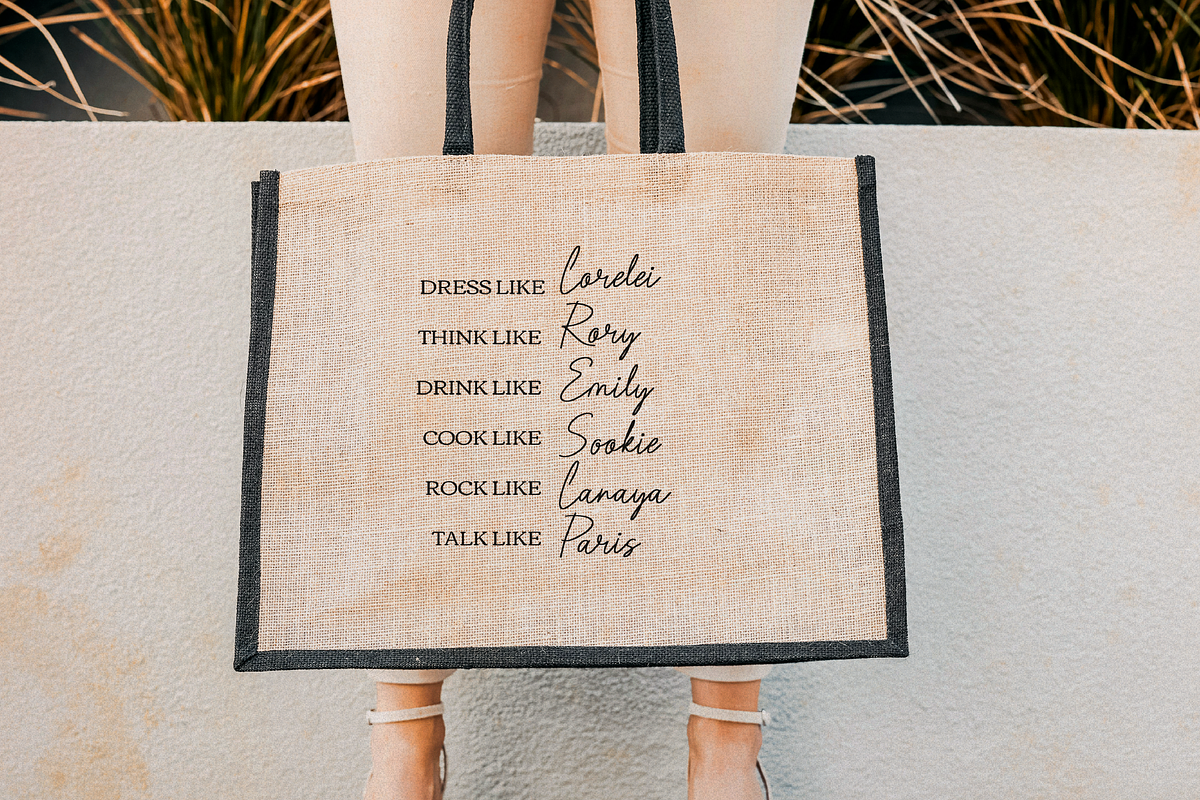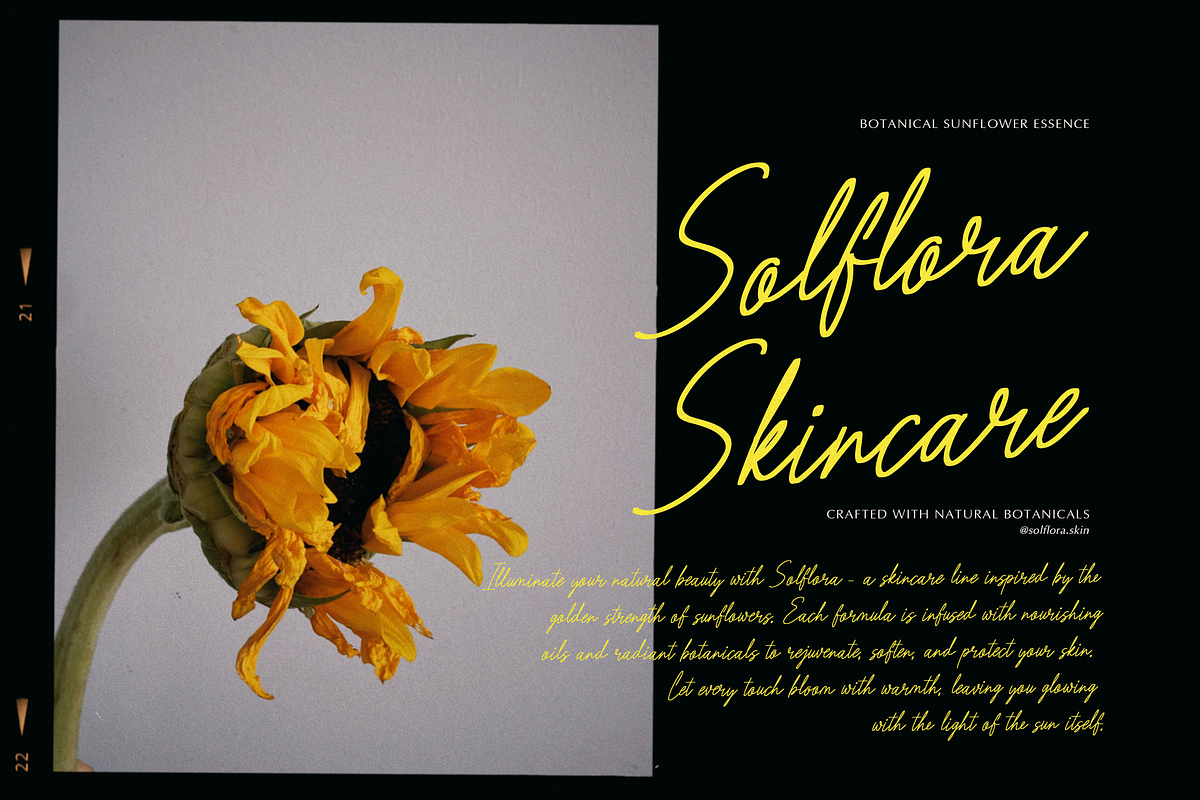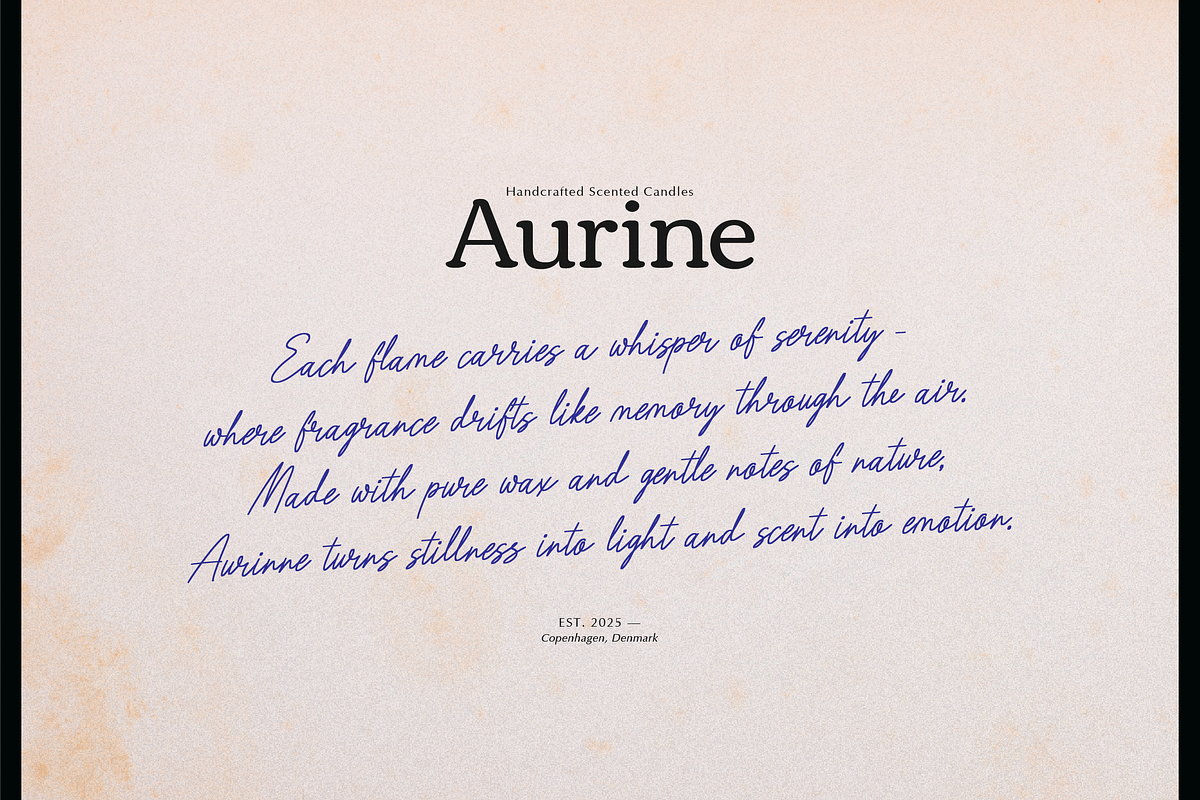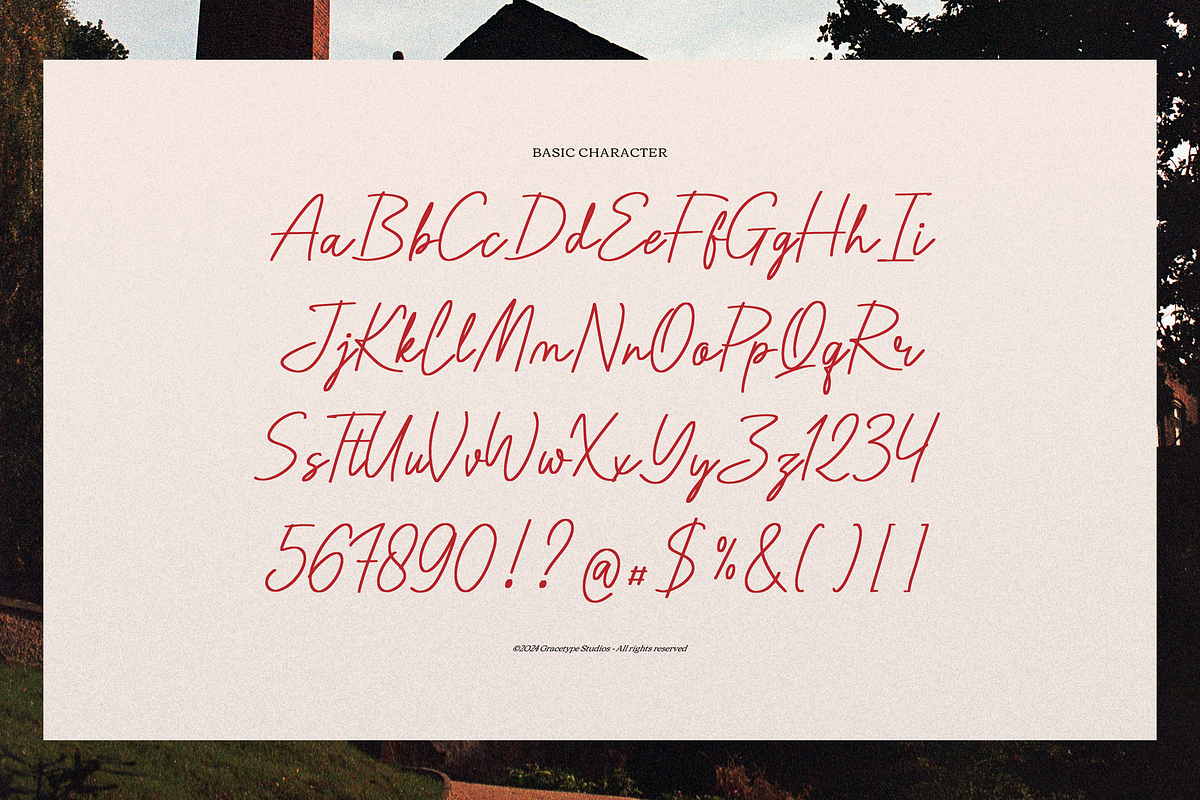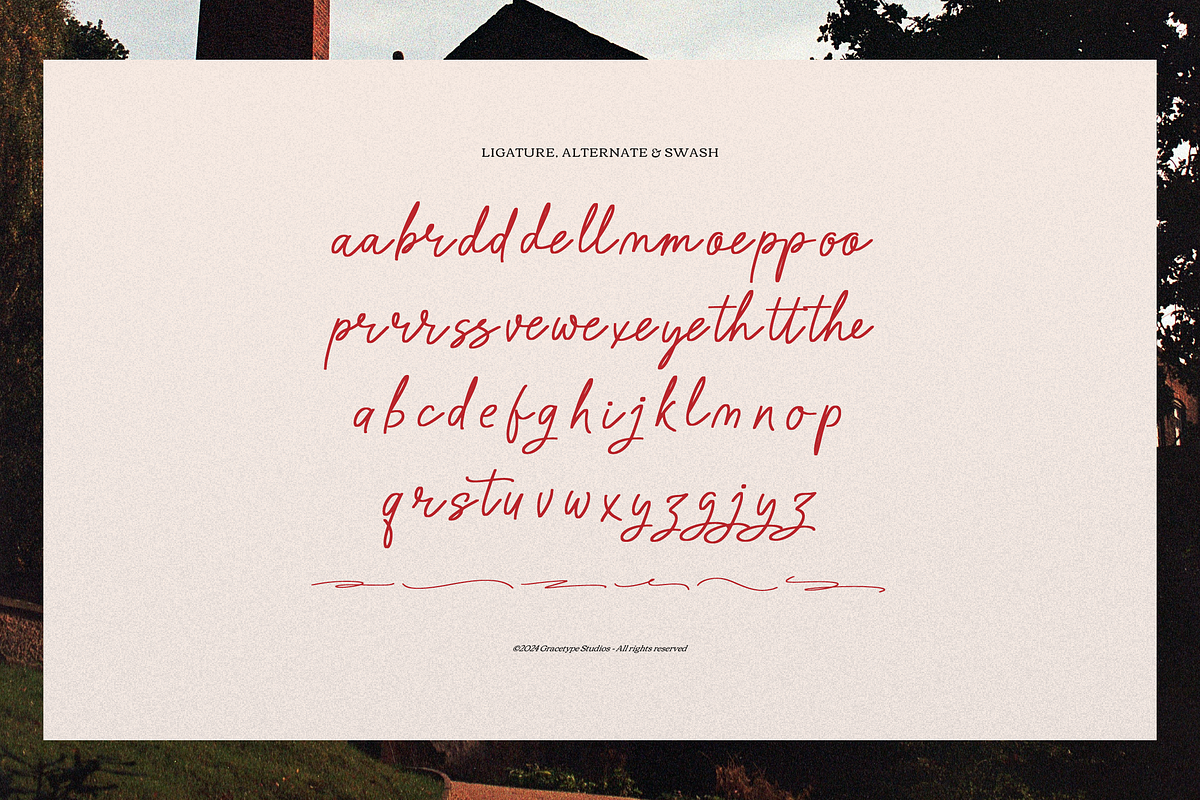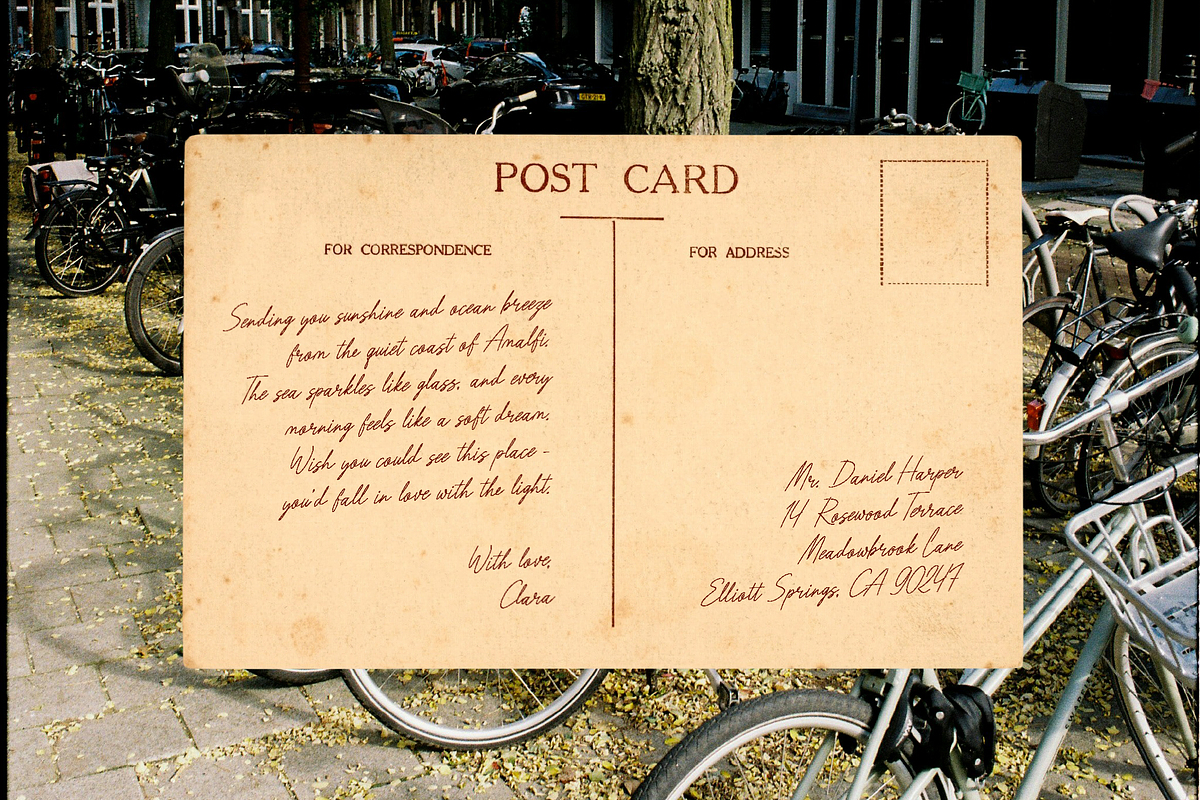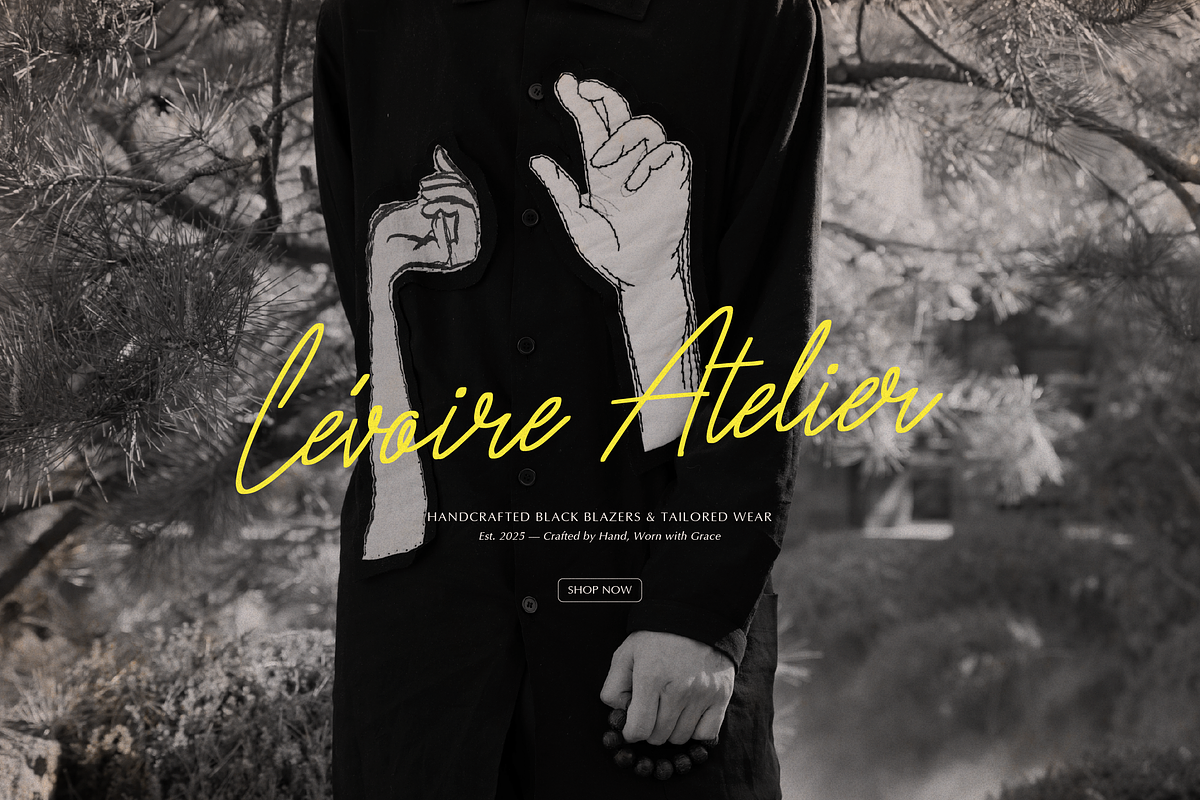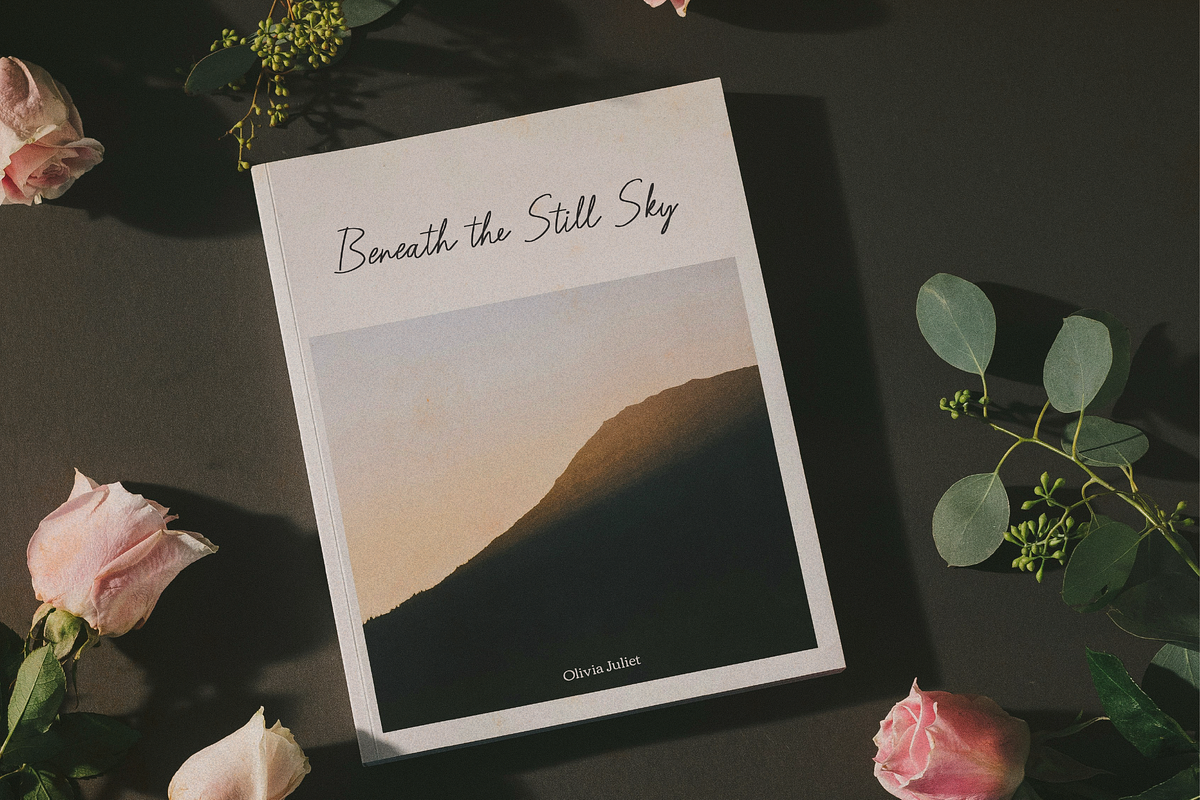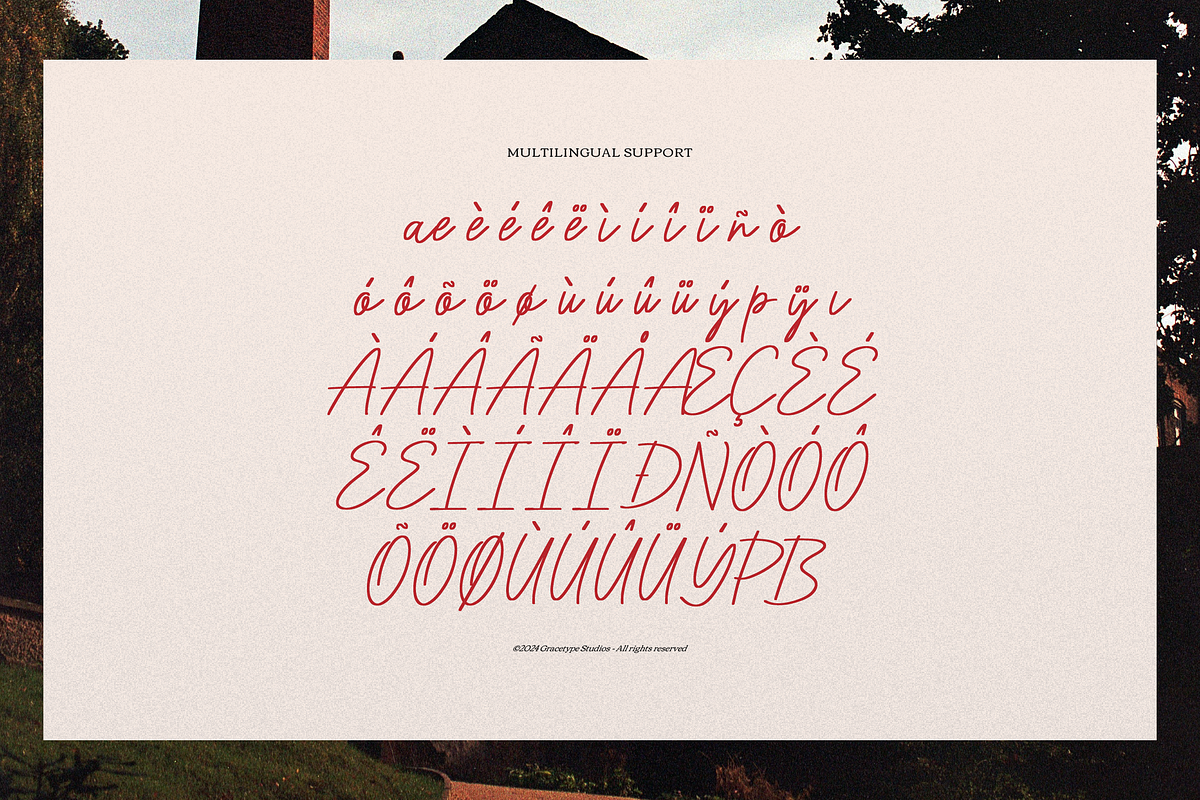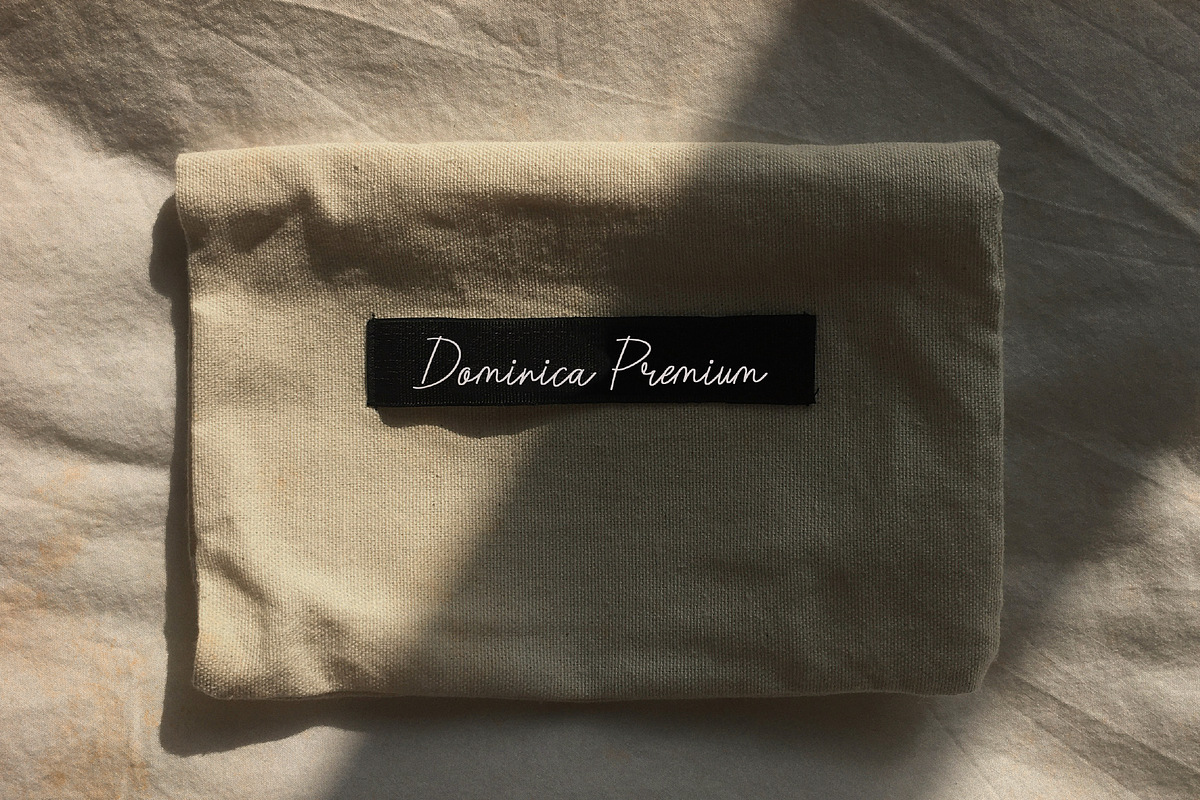
Barrow Waylow | Handwritten Script
Barrow Waylow | Handwritten Script, from Gracetypestudio, suitable for any projects such as: logos, branding projects, homeware designs, product packaging, mugs, quotes, posters, shopping bags, t-shirts, book covers, name card, invitation cards, greeting cards, label, photography, watermark, special events, and all your other lovely projects that need a Script taste.